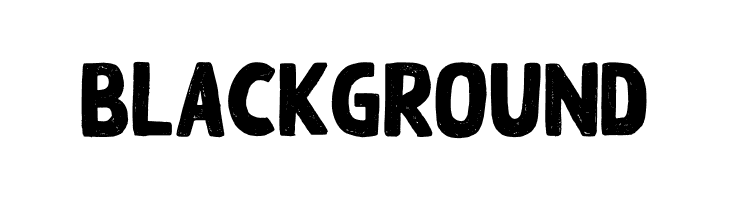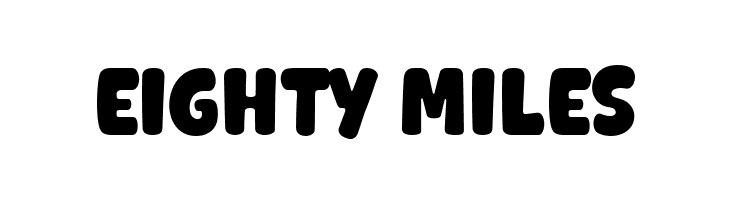
A bold, 3D hand-drawn font with a playful, cartoonish style.
A bold, cursive script font with fluid, connected letters and a dynamic style.
A playful, casual handwritten font with smooth, rounded edges.
A bold, expanded font with a playful and modern style.
A bold, dynamic font with a climber motif integrated into each character.
A playful, bold font with rounded, organic shapes and a retro vibe.
A sleek, modern, light italic font with elongated characters.
A playful and casual handwritten font with a whimsical charm.
تحظى Zupagargonizer, wmwedding, Shutter Times, haeun and Lionel Expanded بشعبية لخطوطها النظيفة وتطبيقاتها الواسعة — من الهوية البصرية إلى الصفحات المقصودة والملصقات.